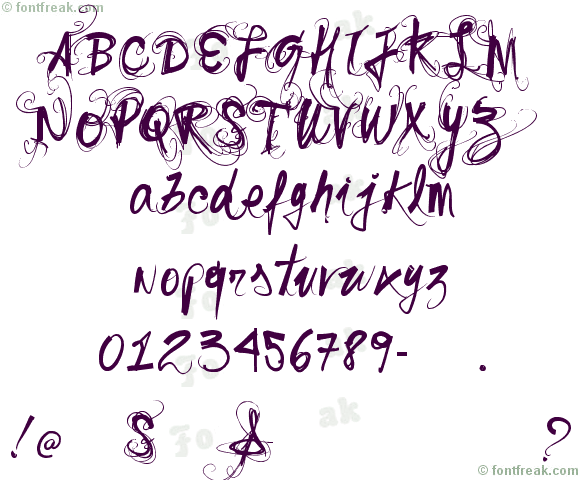
Vtks Sonho
About Vtks Sonho
Vtks Sonho, designed by Douglas Vitkauskas, is a captivating display font that embodies a whimsical and artistic flair. As a decorative typeface, it features playful, swirling strokes that add a sense of elegance and charm to any design project. The font showcases an expressive character set with varying stroke weights, creating a dynamic visual effect that draws the eye. Its moderate contrast and well-balanced spacing enhance readability while maintaining a distinctly artistic style.
This font is particularly well-suited for creative applications where a touch of personality is desired. It excels in wedding invitations, where its romantic curves can beautifully convey love and celebration. Additionally, Vtks Sonho can be a stunning choice for movie posters, helping to evoke a sense of intrigue and drama. Restaurant menus also benefit from its unique character, making dining experiences feel more inviting and special. Moreover, small business owners and independent creators can leverage this font for branding materials, such as logos and promotional graphics, to stand out in a competitive marketplace.
Targeting graphic designers, small business owners, and content creators, Vtks Sonho offers a refreshing alternative to more conventional typefaces. Its unique design can help elevate projects, making them memorable and engaging. Whether you're crafting a visually stunning invitation or a striking advertisement, this font provides the versatility and charm that can truly enhance your work.